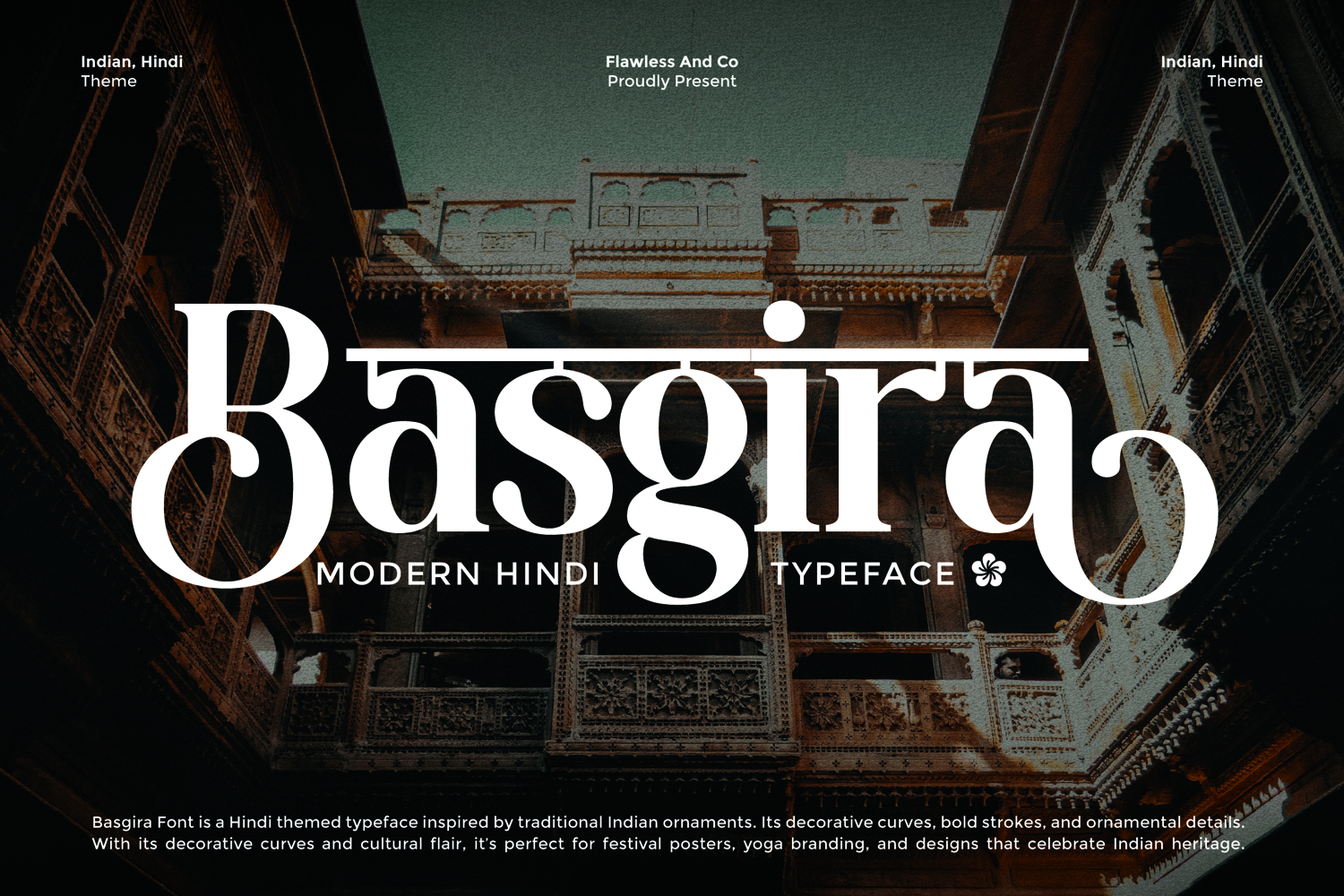
Basgira
BASGIRA
Basgira - Modern Hindi Typeface Font
Basgira is a modern Hindi-themed font inspired by traditional Indian ornaments. Its elegant decorative strokes, bold lines, and cultural details bring a sense of heritage and sophistication to any design. With its artistic curves and ornamental flair, Basgira is perfect for festival posters, yoga branding, cultural events, packaging, and projects that celebrate Indian tradition with a contemporary touch. Whether for branding, editorial use, or expressive displays, Basgira delivers authenticity and modern beauty in one typeface.
• Alternates & Ligatures
Who Should Use Basgira?
Basgira is designed for creatives, brands, and designers who want to blend cultural richness with modern style. It’s ideal for yoga studios and wellness brands seeking a sophisticated identity, event organizers promoting cultural or festival themes, designers creating packaging with an ethnic or ornamental touch, and businesses that want to highlight Indian-inspired elegance in their branding.
A Must-Have Font for "Brand and Logo" Creators and Designers
Basgira is a must-have for brand and logo creators who value cultural depth and artistic flair. With its modern Hindi-inspired details, this font brings uniqueness and sophistication to every design. Perfect for those who want to craft logos that stand out with elegance, tradition, and a strong visual identity.
Why Choose "Basgira" for "Brand and Logo" Projects?
Basgira is the perfect choice for brand and logo projects because it combines modern elegance with traditional Indian-inspired artistry. Its bold strokes, ornamental curves, and cultural essence create a unique identity that sets your designs apart. Whether you’re building a premium brand, a cultural business, or a creative project, Basgira ensures your logo speaks with both sophistication and heritage.
• Luxury brand identities and cultural businesses
• Yoga studios, wellness centers, and holistic branding
• Festival posters, traditional events, and heritage-inspired campaigns
• Editorial layouts, book covers, and magazines
• Packaging design for organic, artisanal, or premium products
• Social media graphics with a cultural or elegant theme